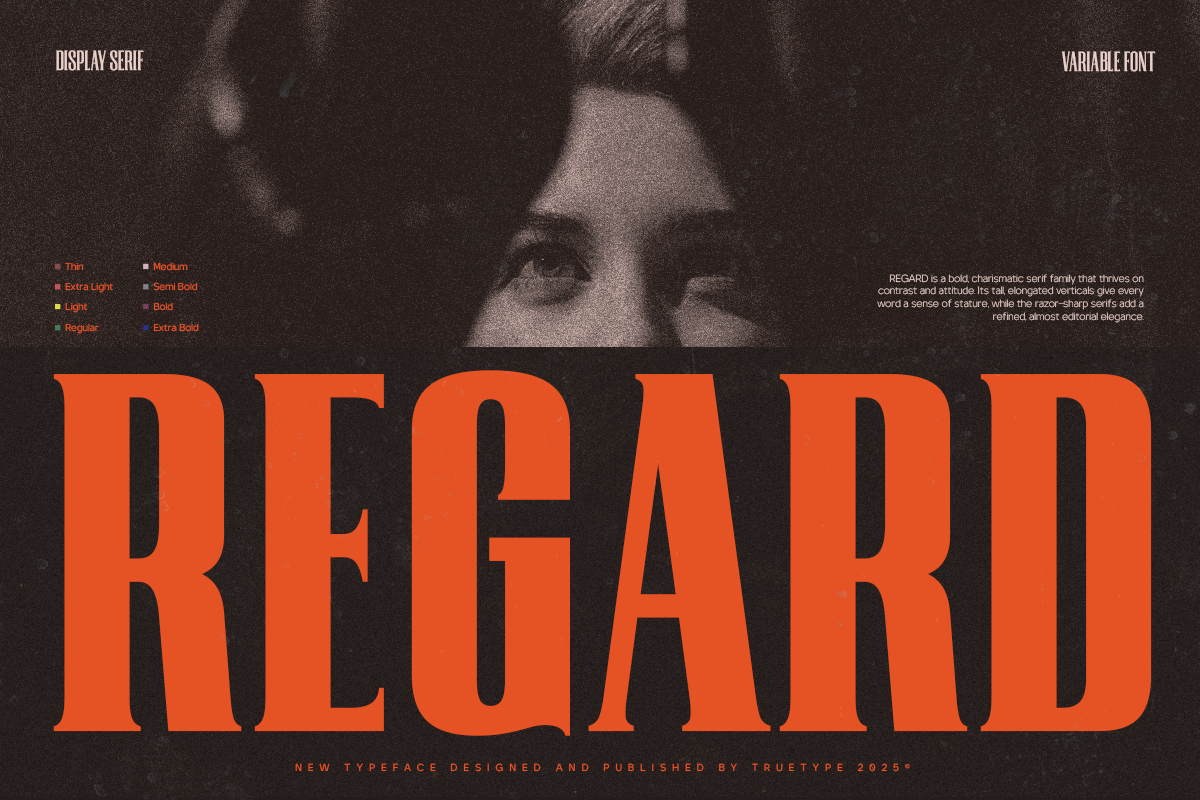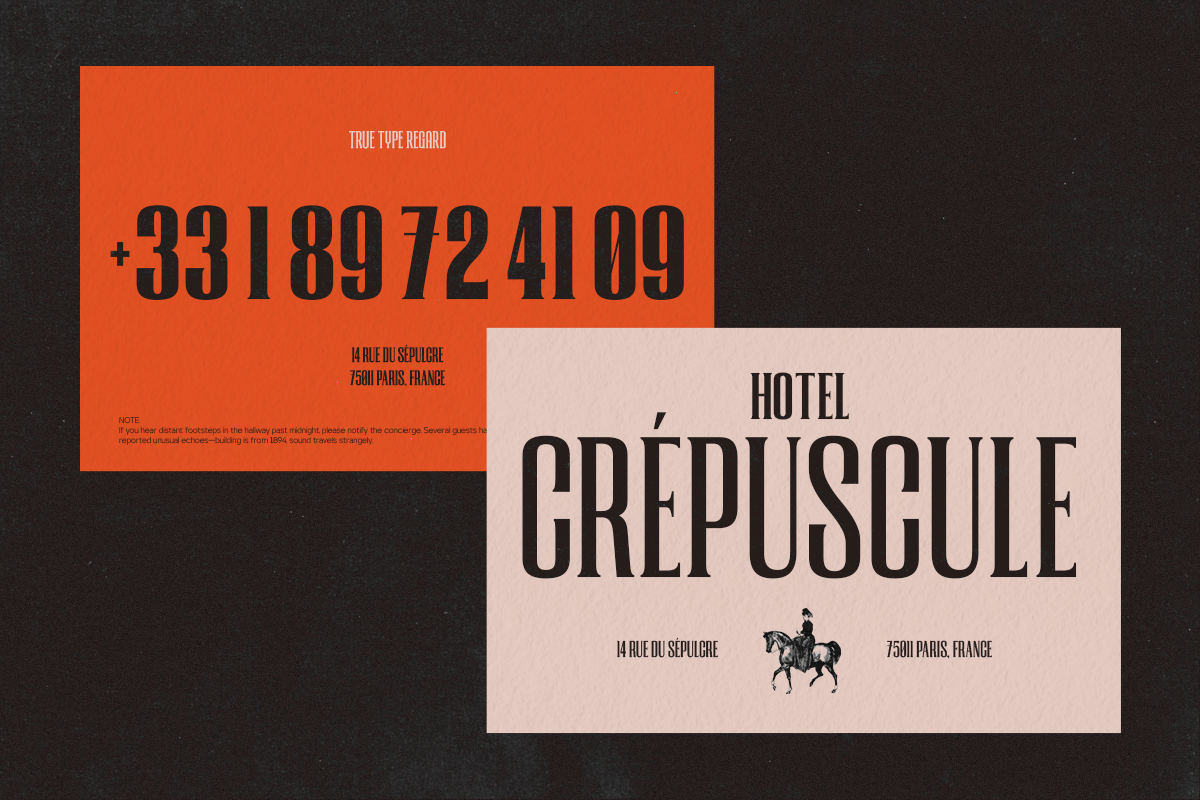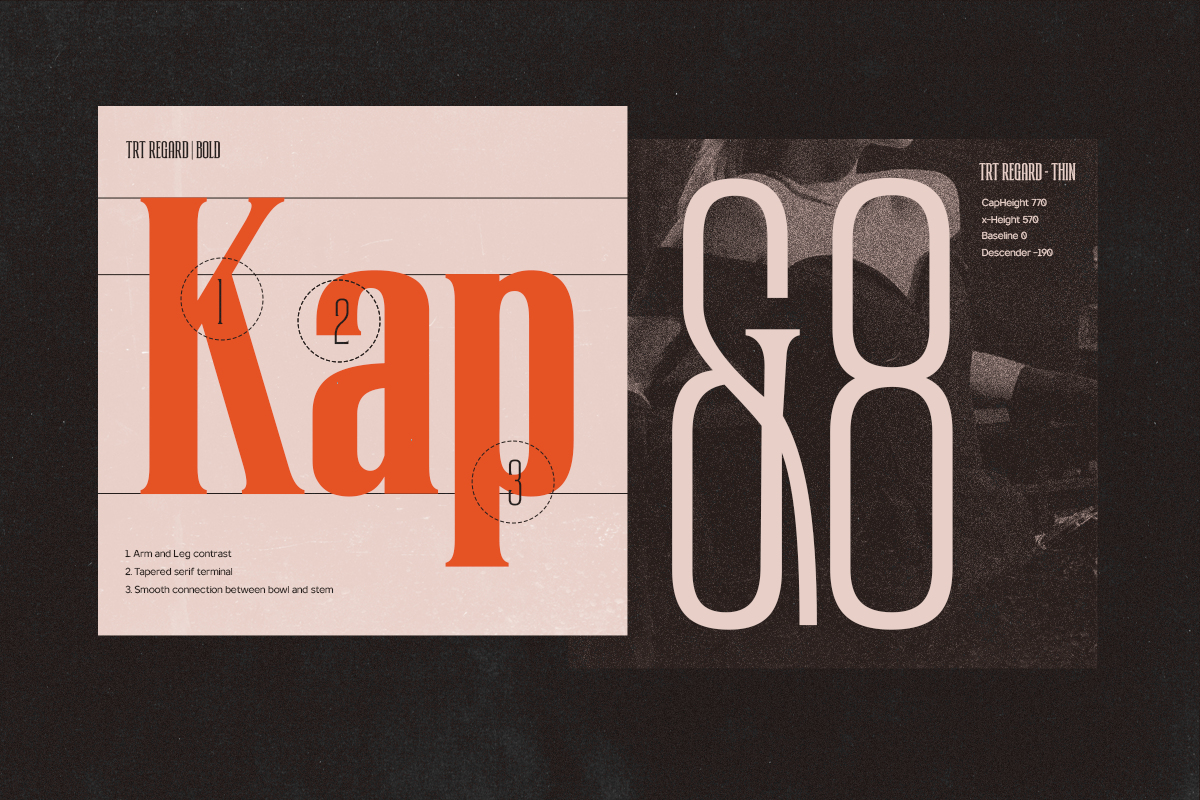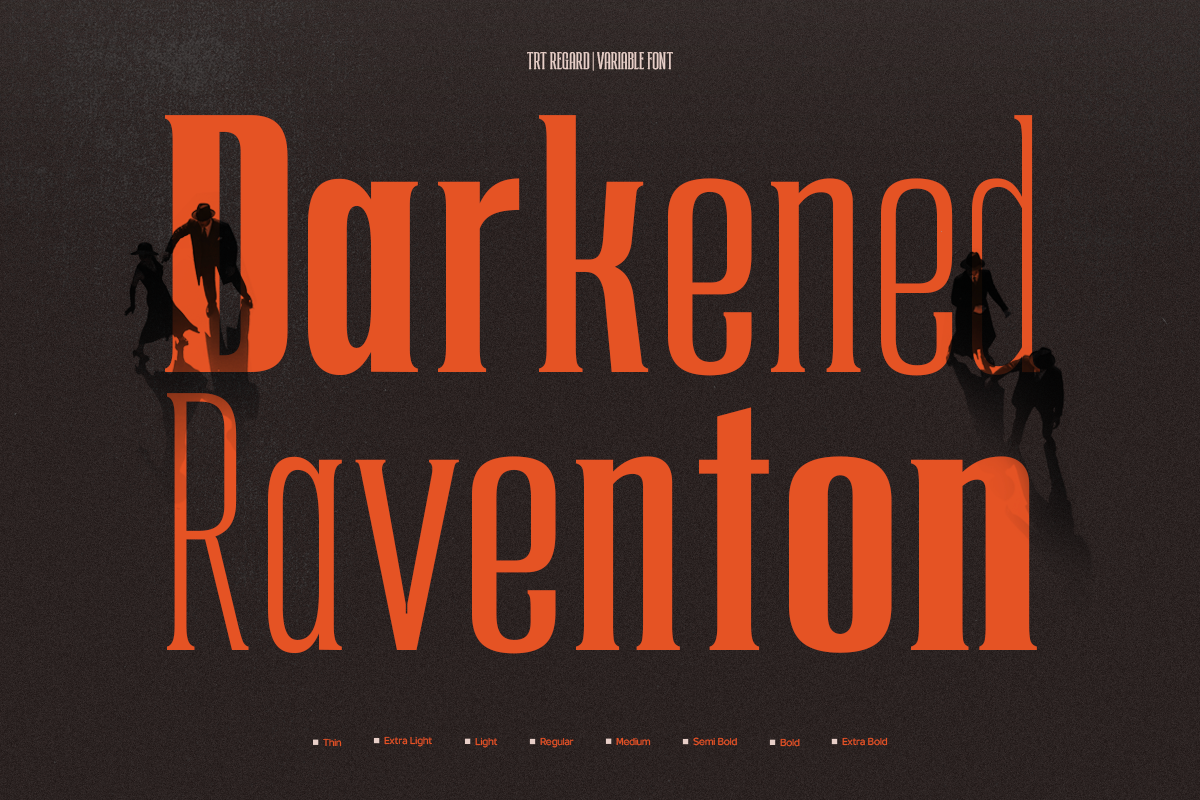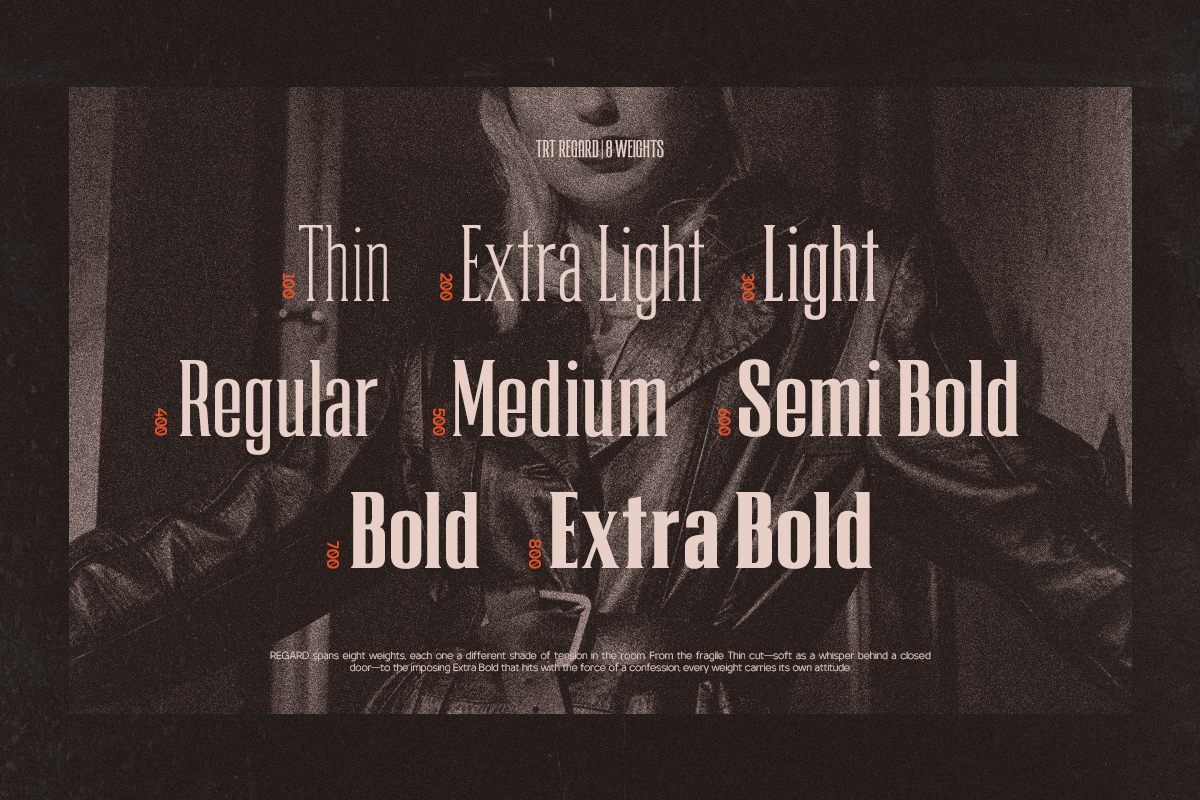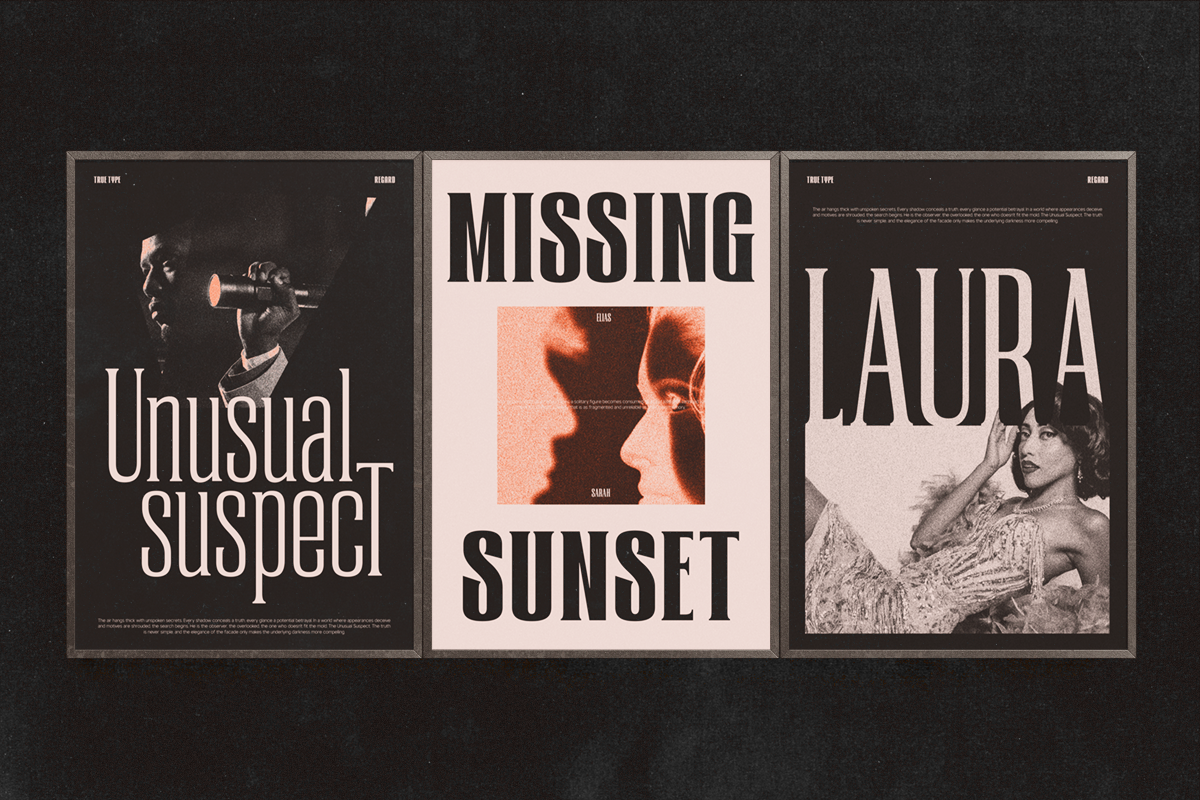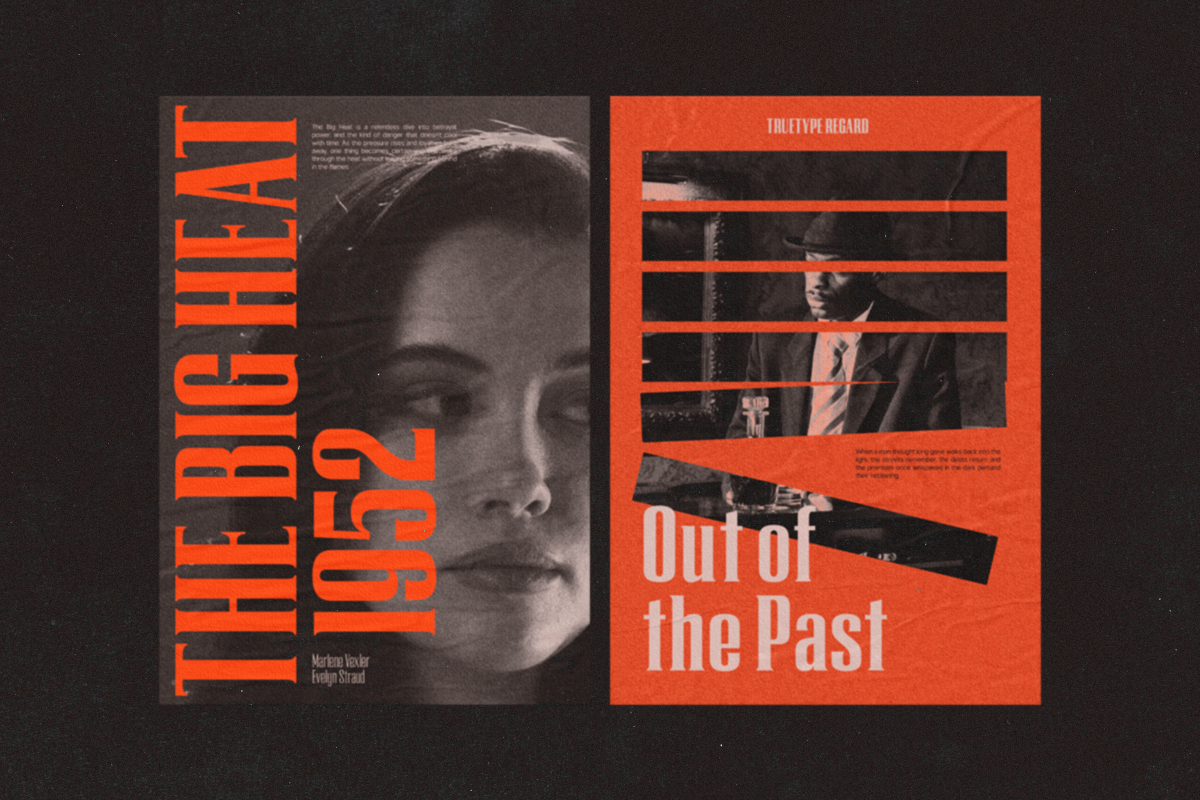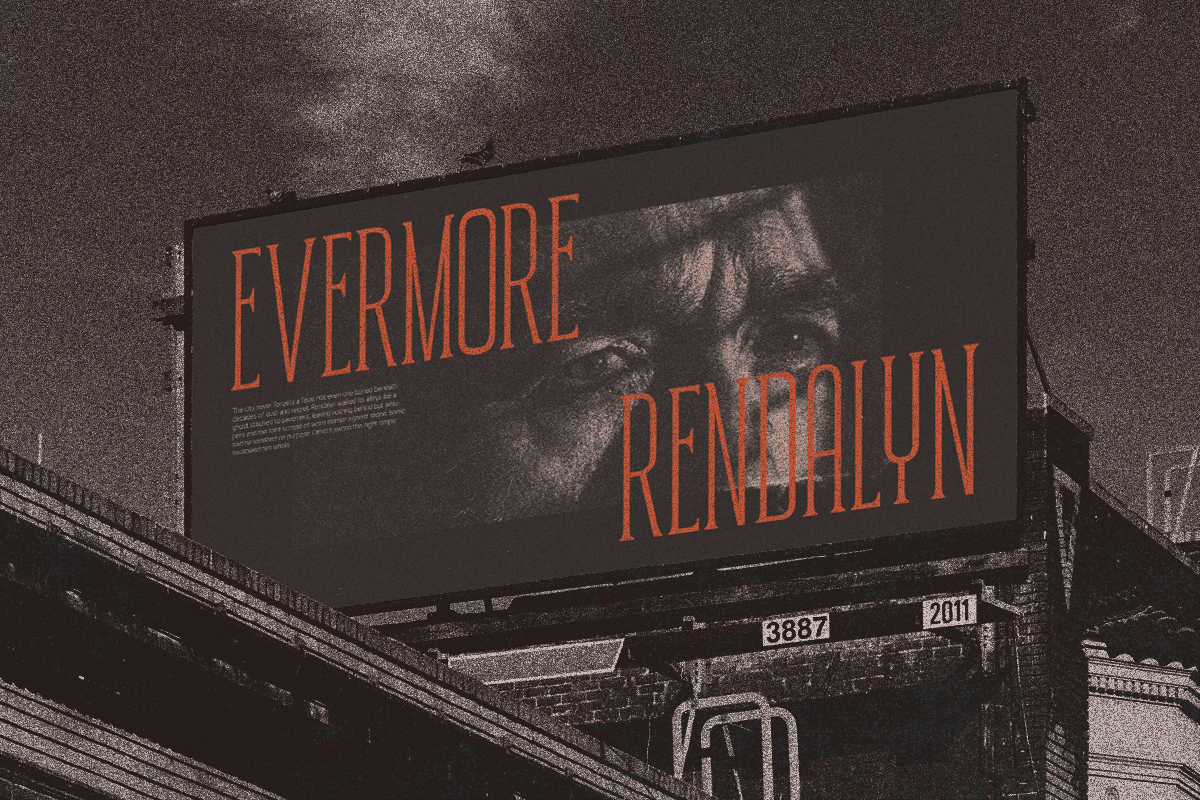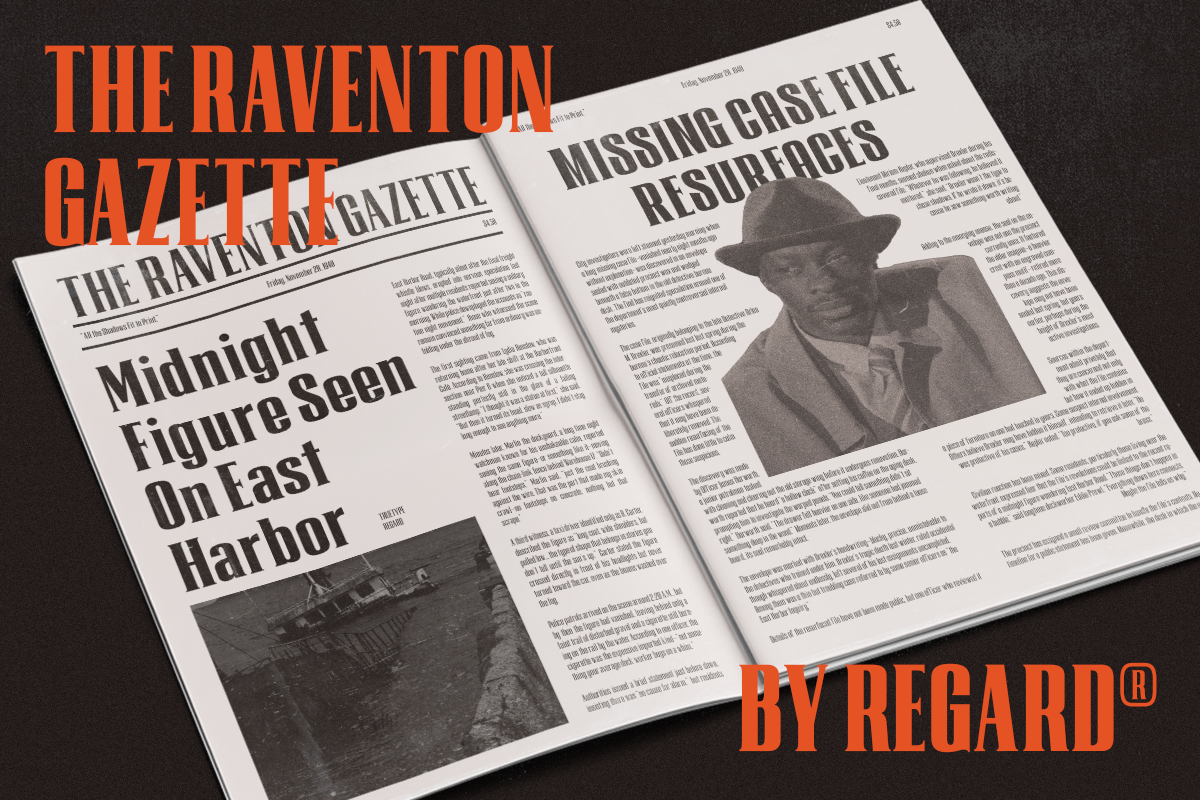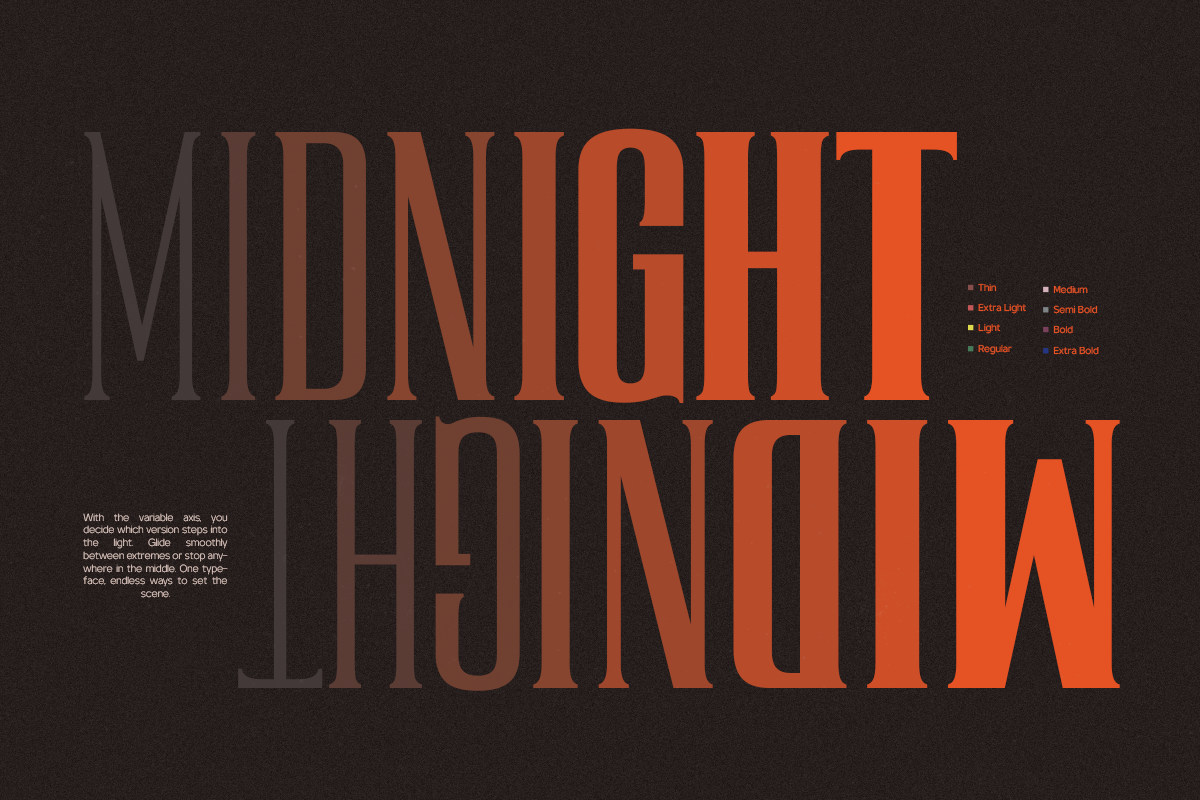
TRT Regard Condensed Display Font
Regard Condensed is a striking sans serif display font with high impact and razor-sharp presence. Built with tall proportions and tight curves, it brings intensity and elegance to any design it touches.
With its condensed structure, clean verticals, and strong rhythm, Regard Condensed is perfect for posters, logos, headlines, and branding work that demand attention.
Whether you're designing for fashion, music, media, or culture, Regard Condensed delivers a powerful tone. It's bold without being brutal, artful without being overly ornate a typeface that knows how to lead the visual conversation.